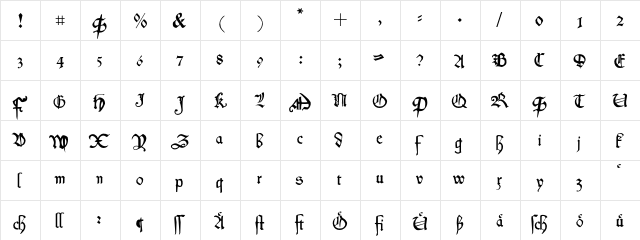
Koberger Regular
Design Context for Koberger Typeface
Koberger is a composed and adaptable typeface that performs quietly and consistently across a wide range of design contexts.